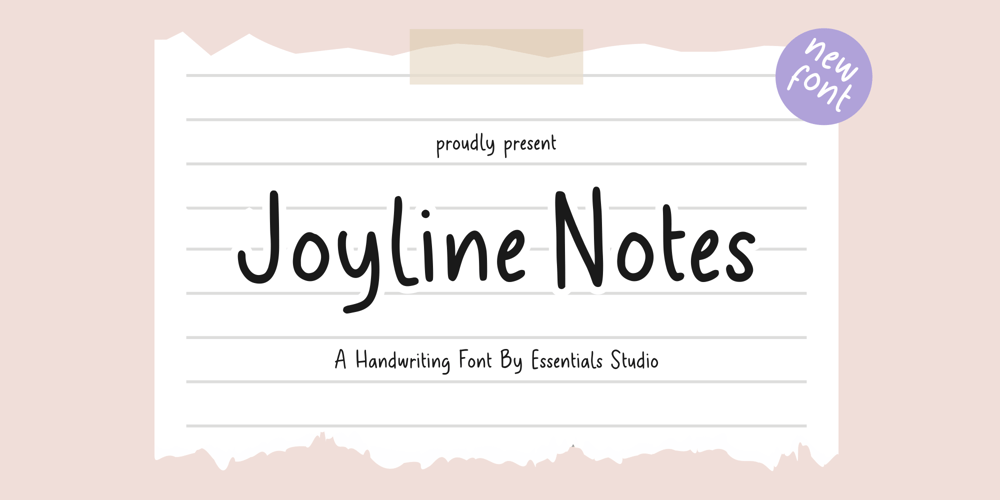
Joyline Notes Font Family was designed by Annas Rifky Anhar and published by Essentials Studio. Joyline Notes contains 1 styles and family package options. introducing by Essentials StudioProudly Present, Joyline NotesDelmonte Is a A Cute Handwritten FontDelmonte is perfect for product packaging, branding project, megazine, social media, wedding, or just used to express words above the background.